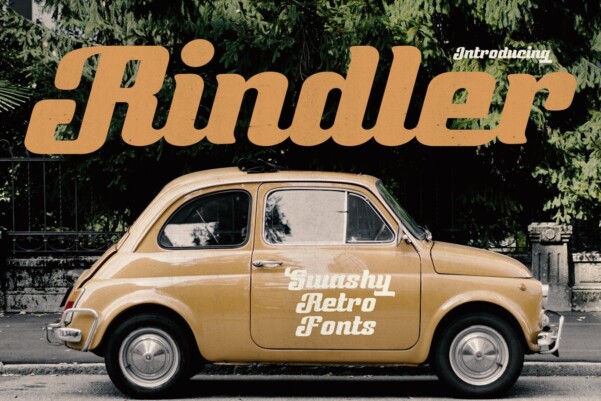
Rindler Font
Rindler Font, the epitome of vintage elegance designed for the modern soul. Inspired by the clean lines of vintage car emblems and the nostalgic glow of neon motel signs, Rindler takes you on an unforgettable journey through the golden age of the 1970s.
Discover the charm of yesteryear with the incomparable charm of Rindler . Whether creating a brand identity or adding a vintage touch to your designs, it’s your passport to timeless sophistication